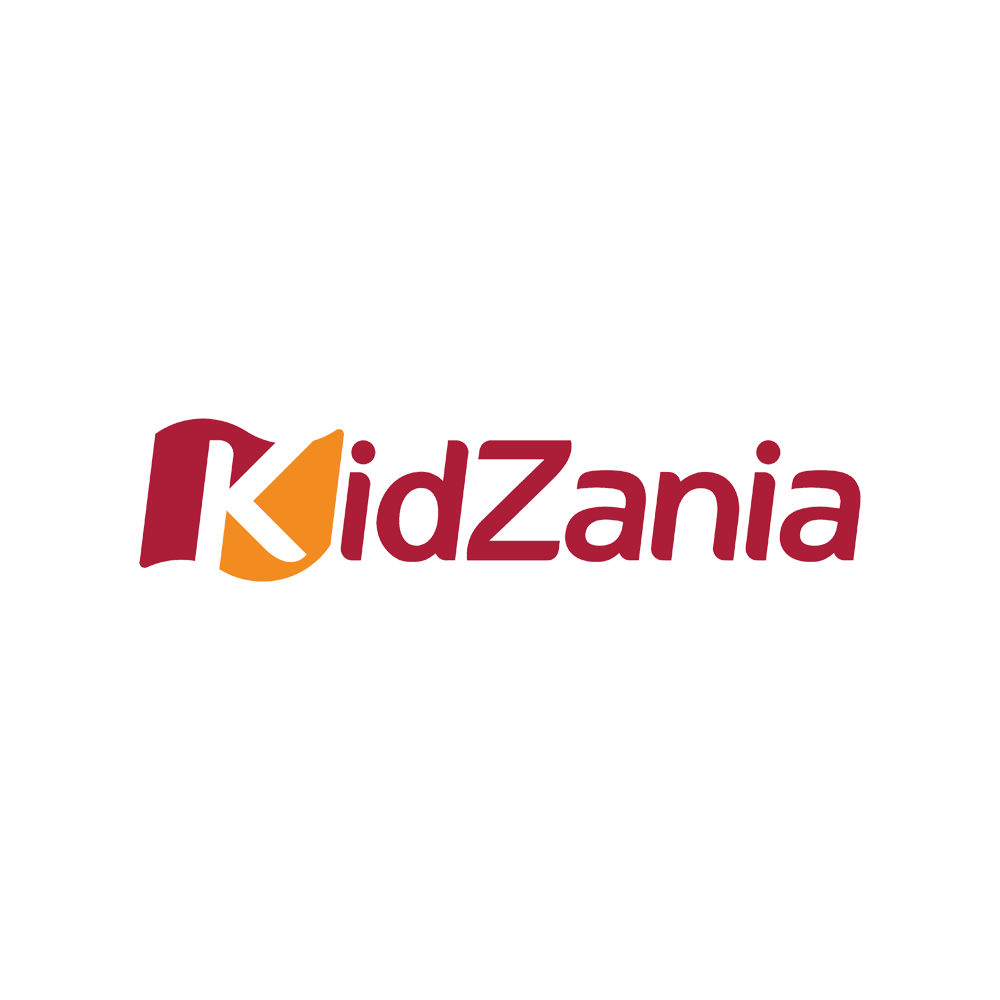
KidZania Logo Font
EntertainmentKidZania is a global chain of educational entertainment centers designed for children between 4 to 14 years old. It offers kids a mini-city where they can role-play as adults and experience different careers in a realistic and interactive environment.